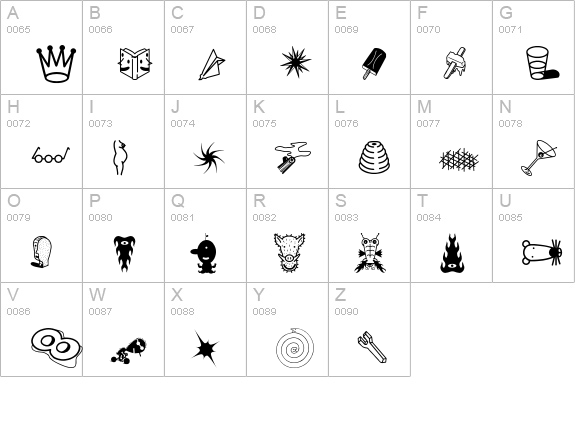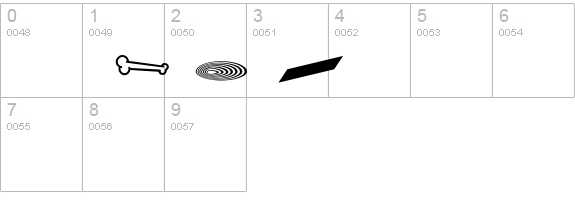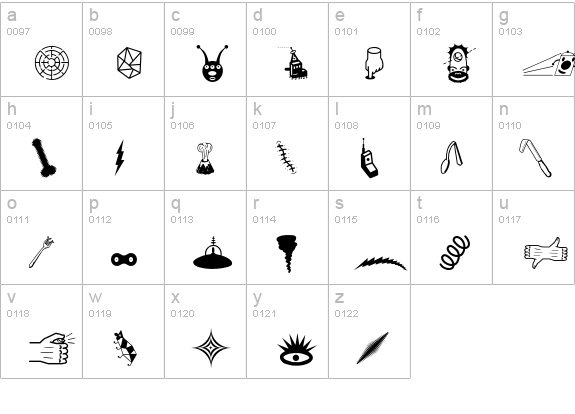
ThingbatTwo Font Details
Introducing ThingbatTwo, a captivating and versatile font that will add a touch of whimsy to any design project. With its unique blend of playful curves and intricate details, this font is perfect for creating eye-catching logos, posters, and social media graphics. ThingbatTwo is the embodiment of creativity and innovation, with each character carefully crafted to stand out and make a statement. Whether you're designing for a children's book, a fashion brand, or a tech startup, this font will effortlessly convey your brand's personality and captivate your audience. But what truly sets ThingbatTwo apart is its versatility. With a wide range of glyphs and stylistic alternates, you have the freedom to customize your designs and create truly unique compositions. Whether you're looking for a bold and expressive look or a more delicate and elegant feel, this font has you covered. And the best part? ThingbatTwo is completely free! That's right, you can download this incredible font at FontsMarket.com without spending a dime. We believe that great design should be accessible to all, and with ThingbatTwo, you can elevate your creative projects without breaking the bank. So, what are you waiting for? Download ThingbatTwo today and unleash your creativity like never before. With its captivating charm and endless possibilities, this font is sure to become your go-to choice for all your design needs. Don't miss out on this opportunity to enhance your work with this remarkable and freely available font.